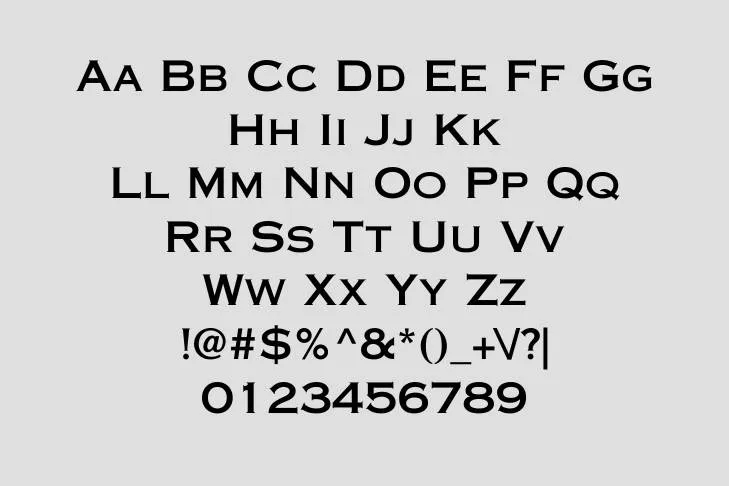
Copperplate Gothic font is a unique and stylish typeface developed by Fredric W. Goudy and American Type Founders released it in 1901. This typeface belongs to a Sans-Serif typeface and contains small glyphs. It consists of horizontal and vertical strokes. The Copperplate font generator tool allows you to create stylish and stunning shapes of Copperplate Font.
It only contains uppercase letters as it was designed for titles and headings. Later on, this typeface was redesigned and produced by Linotype. The purpose of its redesign was to use it for several purposes and not for headings. Thus, this typeface falls under the category of Wedge classification.
Usage of Copperplate Gothic Font
This classy typeface is useful for many purposes but its main application is that it is used for stationary purposes like in books and notebooks printing, gift or invitation cards printing, etc. It is also used for lettering carved on glass doors and creates a beautiful and elegant impression. By using the magnolia script font in conjunction with this typeface, you can achieve remarkable displays.
Many restaurants, offices, and law firms also prefer to use this aesthetic font as it attracts visitors a lot. A famous gaming video “ Who Wants to be a Millionaire” has used this typeface. it can also be optimized for giving headings, subheadings, and titles to magazines, books, or movies.
Display Image of Copperplate Gothic Font
Copperplate Gothic Font Pairing
There are numerous fonts that resemble this amazing typeface in terms of similar features and attributes. These fonts can be used in place of Copperplate gothic font to provide a like-wise effect to your projects. The fonts are mentioned below:
Copperplate Font Family
This exquisite typeface is composed of two weights which are listed below:
- Copperplate light Medium Bold Font
- Copperplate Condensed Font
What is Copperplate Gothic Font?
Copperplate Gothic is a superb typeface and it was created by Fredric W. Goudy. American Type Founders released it in 1901. Its neat and clear strokes leave a strong impact. It only contains uppercase letters as it was designed for titles and headings.
What font is closest to Copperplate Gothic font?
Balthazar is a typeface that has much resemblance with Copperplate Gothic font and it is used by many cafes in Paris and NewYork.
How can I use the Copperplate Gothic typeface?
It leaves a satisfying and classy effect when used for letters etched onto the glass or for stationary writing. Moreover, This classy typeface is useful for many purposes but its main application is that it is used for stationary purposes like in books and notebooks printing, gift or invitation cards printing, etc.